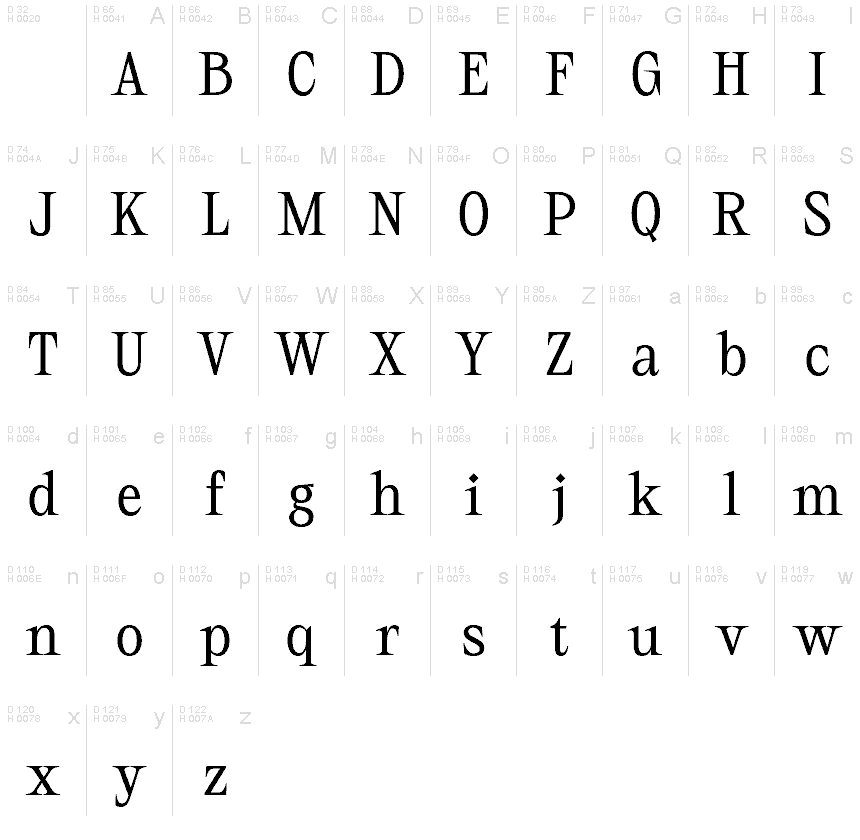
CS Bozhena Regular Demo
CS Bozhena font by Craft Supply Co. is an elegant serif typeface that channels sophistication and classic appeal. Its traditional design allows for versatile use in a variety of modern and vintage projects, making it all the more special. The contrast between thick and thin strokes as well as its stylish serifs make this font stand out wherever it is employed.